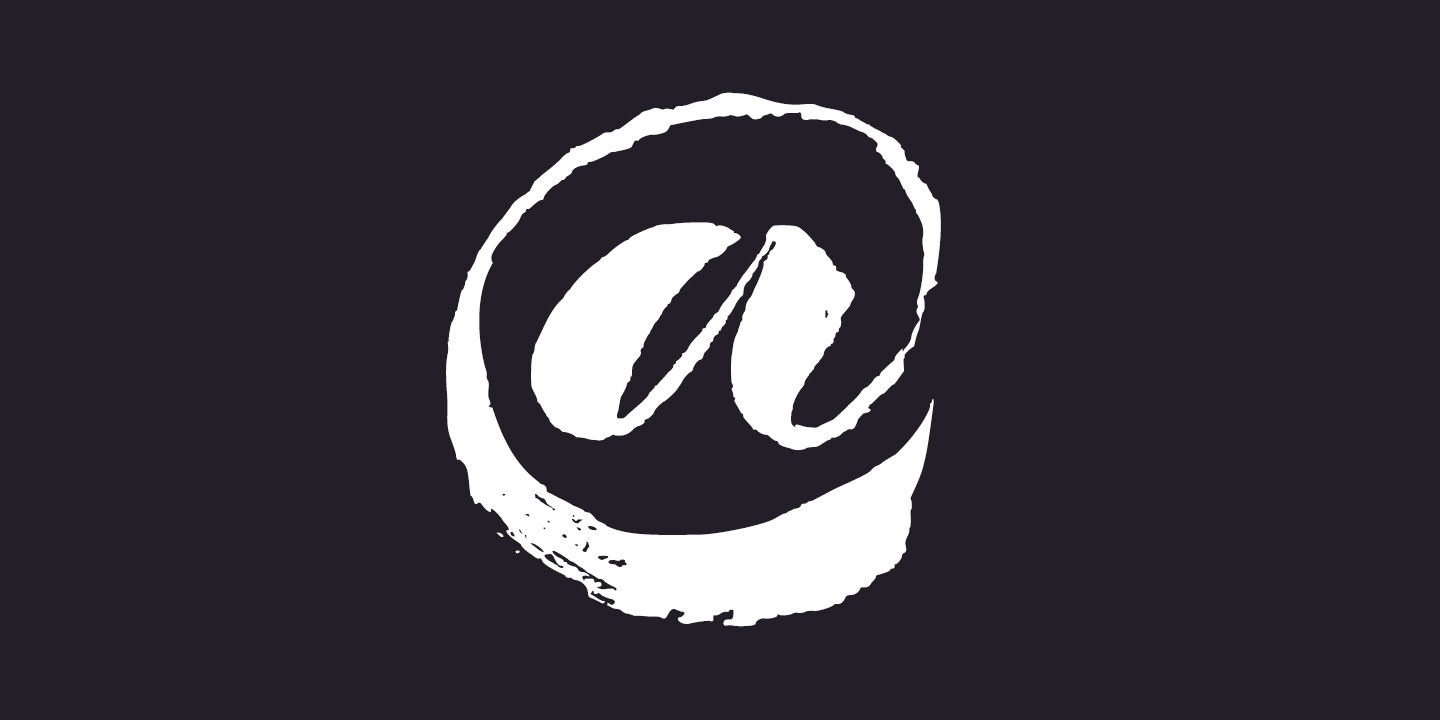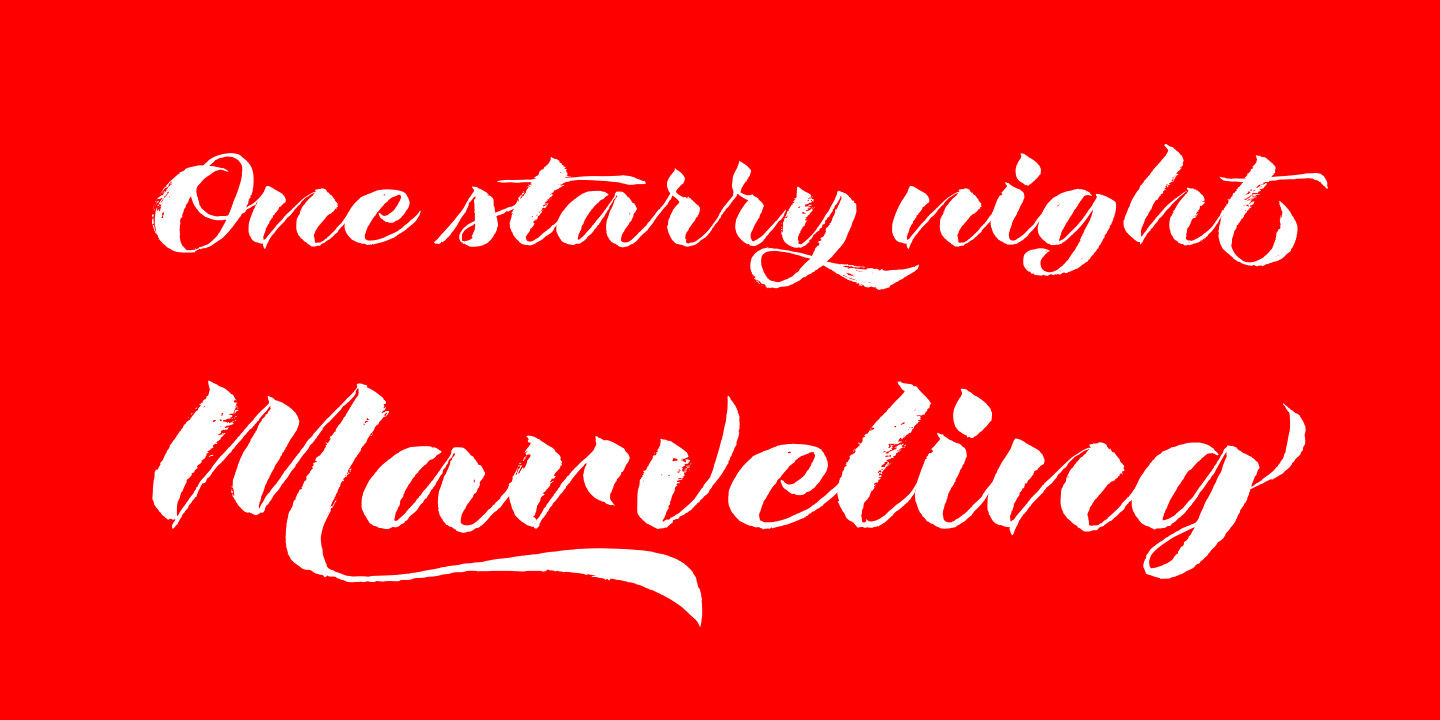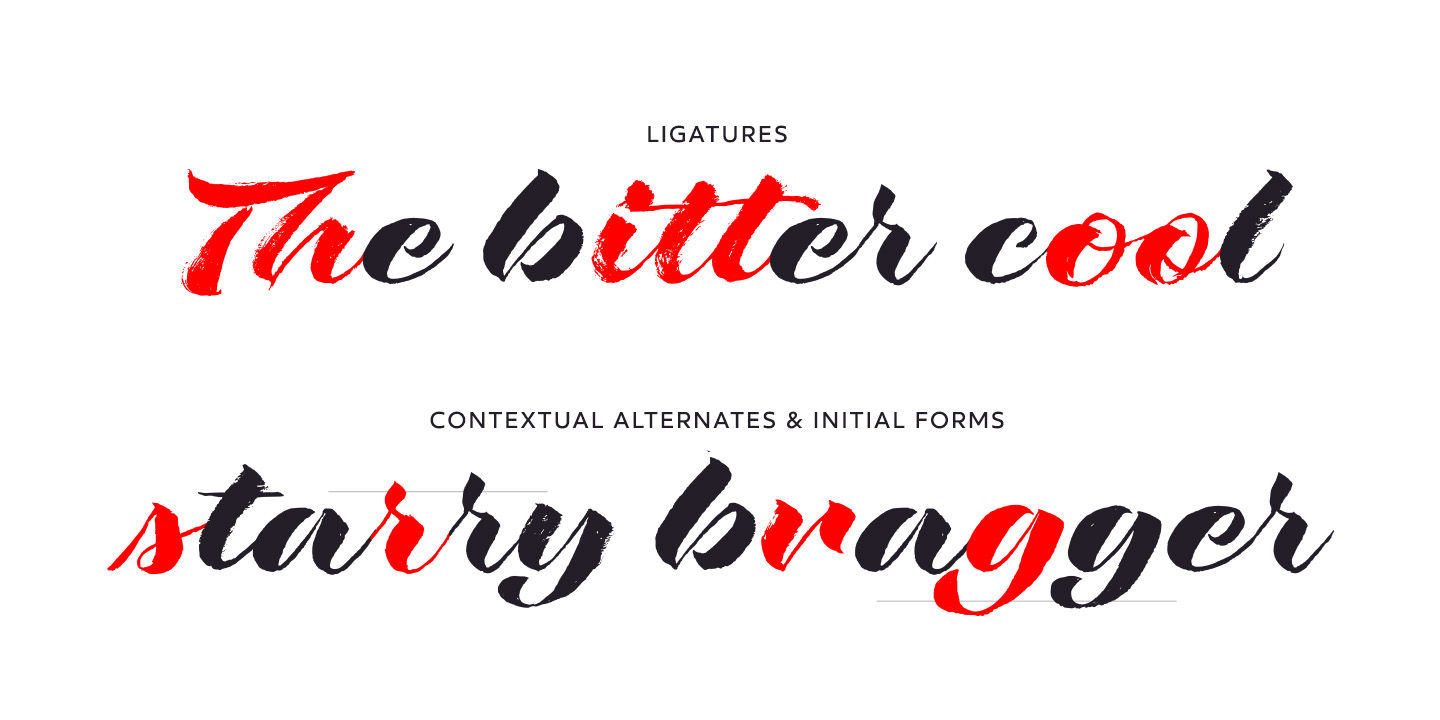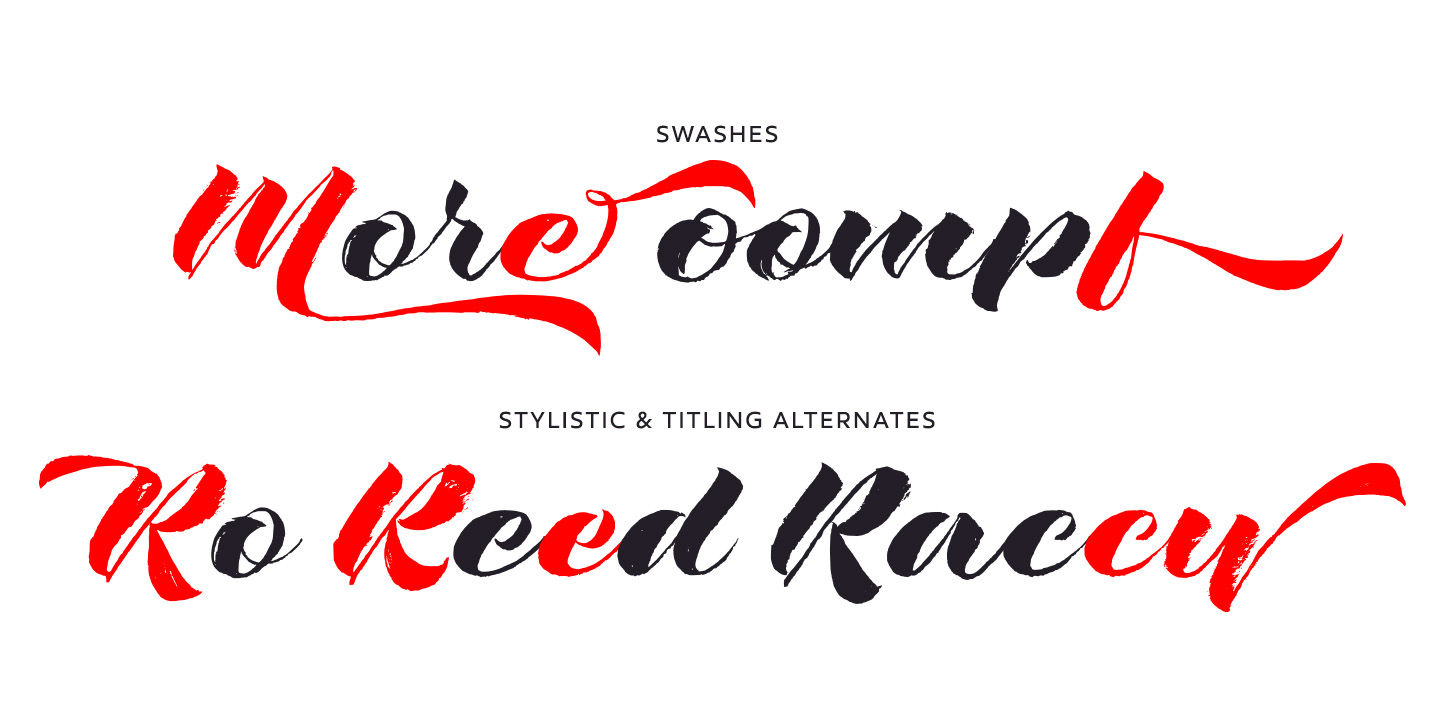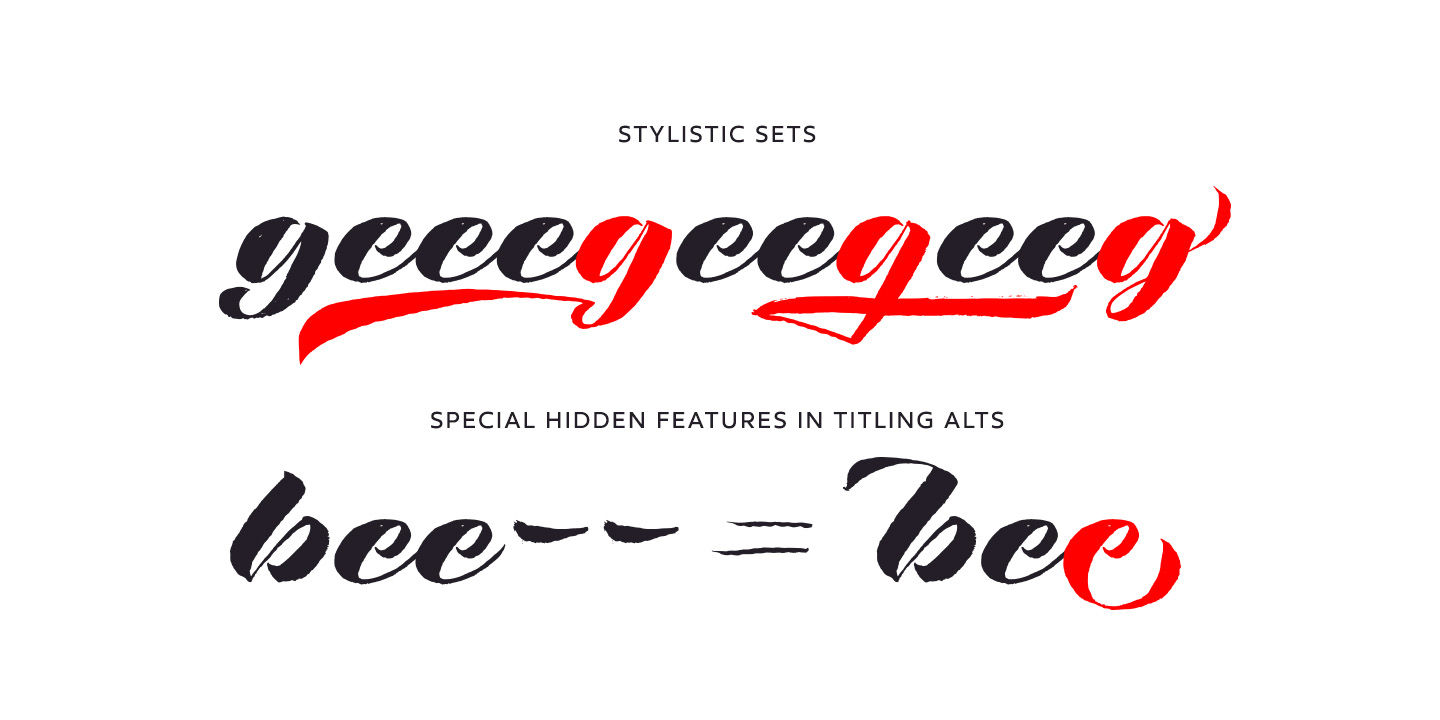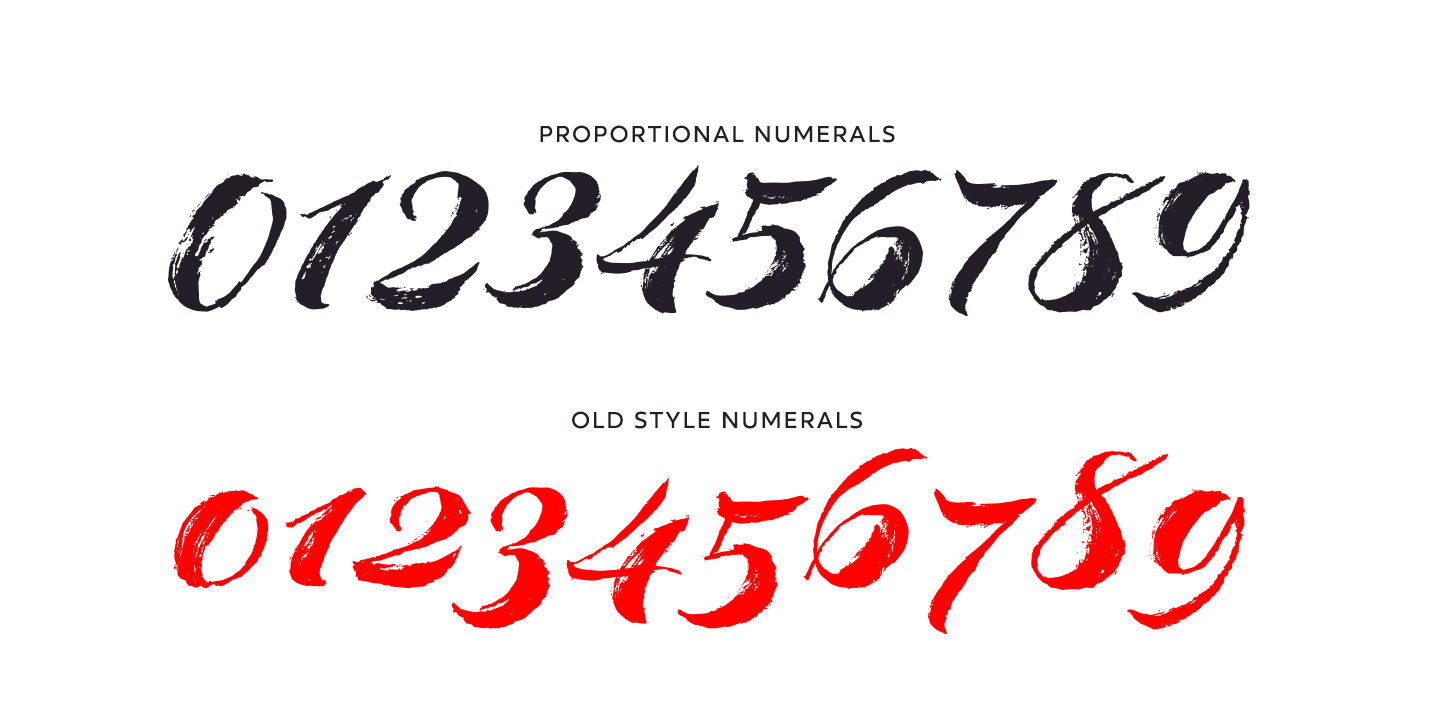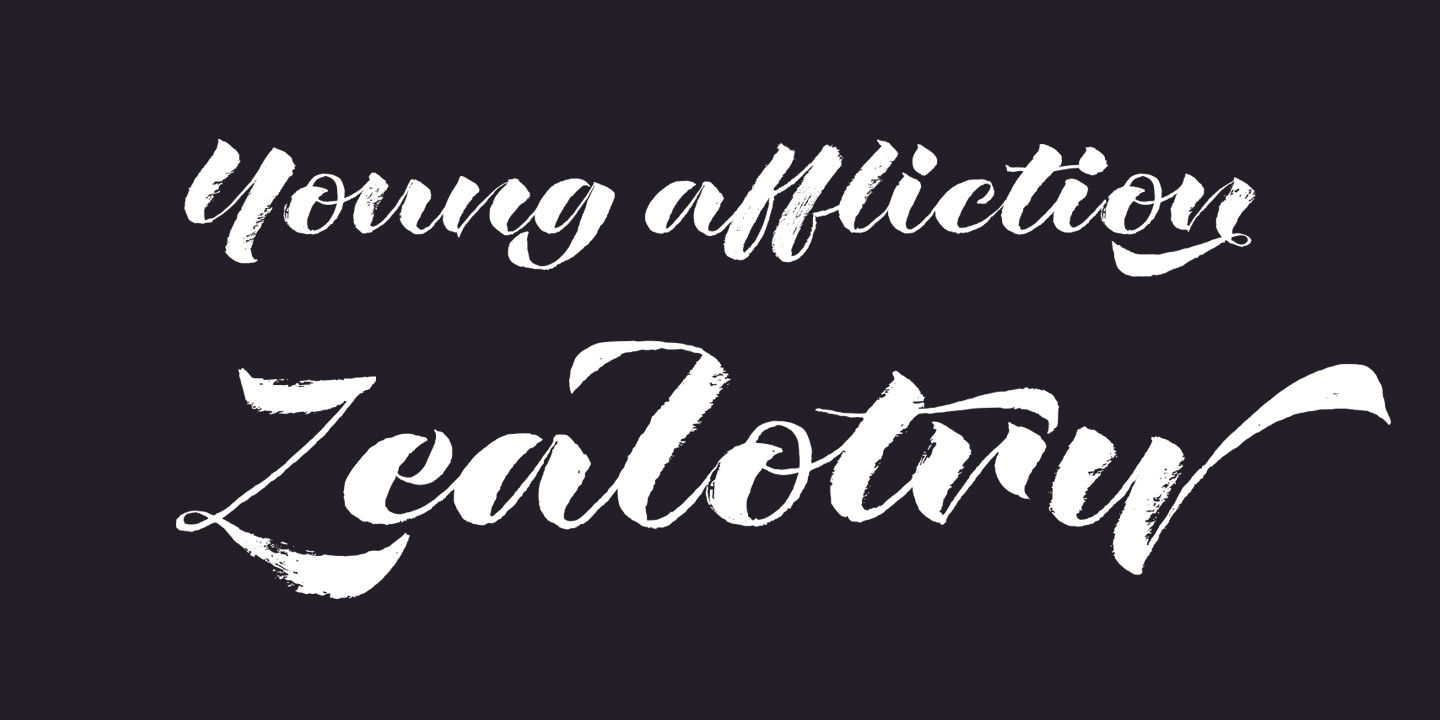
Rough Love
Swashswsh
Titling Alternatestitl
Stylistic Alternatessalt
Oldstyle Numeralsonum
Stylistic Set 1ss01
Stylistic Set 2ss02
Stylistic Set 3ss03
Rough Love, it’s fair to say, came before Love Script. The brushed letter specimens that would ultimately serve as the template for the much ‘cleaner’ Love Script have now been turned into a typeface. As I packed these up, I just kept coming back to them and staring at the texture and movement caught on the page. On a lark, I decided it would be fun to let people see an almost a before and after scenario of how one led to the other and decided to produce a typeface from these specimens… Rough Love.
For the most part, in typical fashion for me when I brush out a typeface idea, I try to brush the entire character set along with each of the planned variants for swashes, titling, and other alternates—the reason for that is simple—each letter looks and acts a bit differently when the same movements are imposed on them. With Rough Love, I tried to adhere to that and made very few modifications to the originals, and only had to ‘borrow’ in a few occasions when I happened to forget to brush a variant.